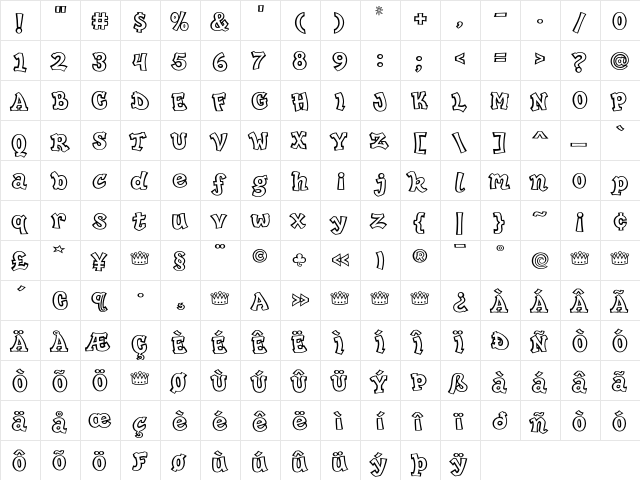
HipHop Inline
| Style | Inline |
Design Context for HipHop Typeface
HipHop is built around its visual character rather than neutral utility — its distinctive forms are designed to make an impression at display sizes.
Font Pairing: Pair with a clean neutral sans-serif for body copy to let HipHop's character lead without overwhelming the composition.
Pro Tip: Use HipHop exclusively at display sizes — it was designed to be seen, not read at length. Let a neutral companion handle body copy.